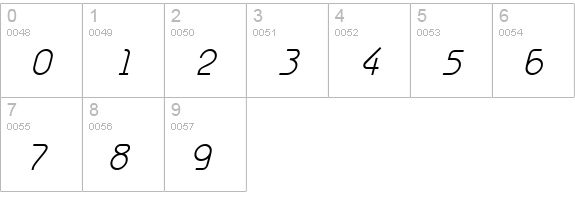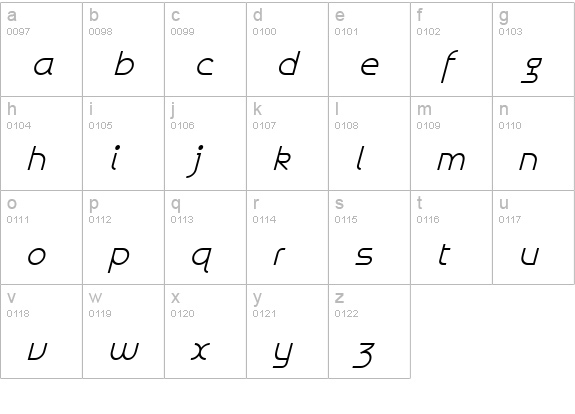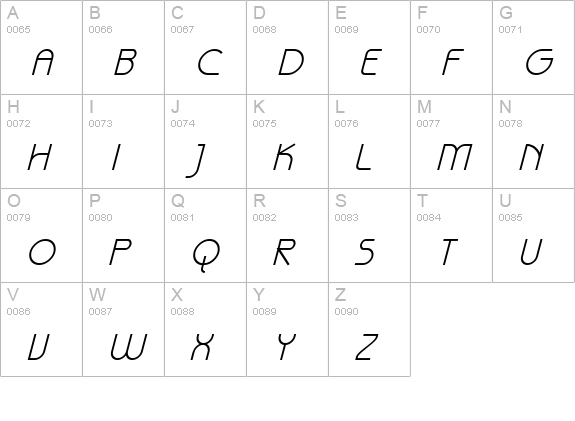
Galexica Italic Font Details
Galexica Italic is a distinctive, italic variant in the Galexica typeface family \xE2\x80\x94 well suited to design and typography projects.
Introducing Galexica Italic, a captivating font that effortlessly blends elegance with modernity. Its sleek and sophisticated design is perfect for adding a touch of refinement to any project. The gracefully slanted letters exude a sense of movement and fluidity, making Galexica Italic a truly eye-catching choice. With its versatile nature, this font is ideal for a wide range of applications. Whether you're designing a logo, creating stunning graphics, or crafting a striking headline, Galexica Italic will elevate your work to new heights. Its exquisite curves and balanced proportions create a harmonious visual experience that captivates the viewer's attention. One of the most remarkable aspects of Galexica Italic is that it is available as a free download exclusively at FontsMarket.com. This means that you can enjoy the beauty and versatility of this font without any financial constraints. The generosity of offering Galexica Italic for free is a testament to the creators' commitment to making exceptional design accessible to all. The download process is seamless and straightforward, allowing you to quickly incorporate Galexica Italic into your creative endeavors. Once installed, you'll have endless possibilities at your fingertips, as this font effortlessly adapts to various design styles and themes. Galexica Italic is crafted with meticulous attention to detail, ensuring impeccable legibility even at smaller sizes. Its elegant strokes and well-defined letterforms make reading a pleasure, enhancing the overall user experience. Whether in print or on-screen, Galexica Italic guarantees a polished and professional look. Unlock your creativity and elevate your design projects with the timeless beauty of Galexica Italic. Download it for free today at FontsMarket.com and let its allure and versatility inspire your next masterpiece.